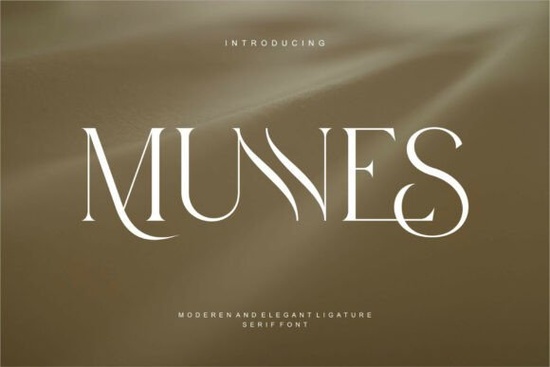
MUNNES is a beautifully crafted serif font that effortlessly combines timeless elegance with a vintage soul and a modern edge. If you're looking for a typeface that brings a refined aesthetic to your designs, this font could be the perfect addition to your collection. Whether you're working on branding, packaging, or personal projects, MUNNES offers a unique blend of sophistication and nostalgia that stands out.
Designed with attention to detail, each character in MUNNES carries a sense of class that makes it ideal for a wide range of creative applications. From logos to social media graphics, this font can elevate your work without overwhelming it. Its versatility makes it a valuable tool for designers, crafters, print-on-demand sellers, small businesses, and creative hobbyists alike.
What Makes MUNNES Stand Out?
MUNNES is more than just a font it's a style statement. The combination of a vintage feel with a contemporary twist gives it a distinctive character that works well in both digital and print formats. Its subtle flourishes and balanced proportions make it easy to read while still maintaining an artistic flair.
How to Use MUNNES in Your Projects
One of the best things about MUNNES is how adaptable it is. It works well in headings, body text, and even decorative elements. For example, using it in a logo can give your brand a classic yet fresh look. In print materials like business cards or brochures, it adds a touch of sophistication that’s hard to match.
For digital use, consider pairing it with a simpler sans-serif font for contrast. This helps keep the design from feeling too busy while still highlighting the beauty of MUNNES. It's also great for social media posts, especially when you want to convey a sense of history or artistry.
Best Practices for Using MUNNES
- Use it for headlines: MUNNES shines when used in larger sizes, making it perfect for titles and banners.
- Pair with clean fonts: Balance its ornate details with simpler typefaces to avoid visual clutter.
- Test in different sizes: Make sure it remains legible at smaller sizes, especially if you're using it in body text.
When working with MUNNES, it's important to consider the context of your project. A font that looks amazing in a poster might not work as well in a mobile app interface. Always test it in real-world scenarios to see how it performs.
Whether you're designing for a client, creating products for sale, or simply experimenting with typography, MUNNES provides a reliable and stylish choice. Its ability to blend old-world charm with modern design makes it a standout option in any designer's toolkit.
Remember, the goal is to enhance your design, not overpower it. MUNNES is a powerful tool, but like any font, it works best when used thoughtfully.
Take a moment to review your current projects and think about where MUNNES could add value. Whether it's for a new logo, a website header, or a printed piece, this font has the potential to make a real difference.
Once you’ve decided on your approach, go ahead and implement MUNNES in your work. You’ll likely find that it brings a level of refinement and character that’s hard to achieve with other fonts.
As you continue to explore typography, keep an eye out for other fonts that can complement your style. MUNNES is just one of many options available, and each has its own strengths and uses.
By choosing the right typeface for your project, you can create designs that not only look good but also communicate the right message. MUNNES is a great place to start if you're looking for something that feels both classic and modern.
With the right application, MUNnes can become a key part of your design process. Whether you're a professional designer or a creative hobbyist, this font is worth considering for your next project.